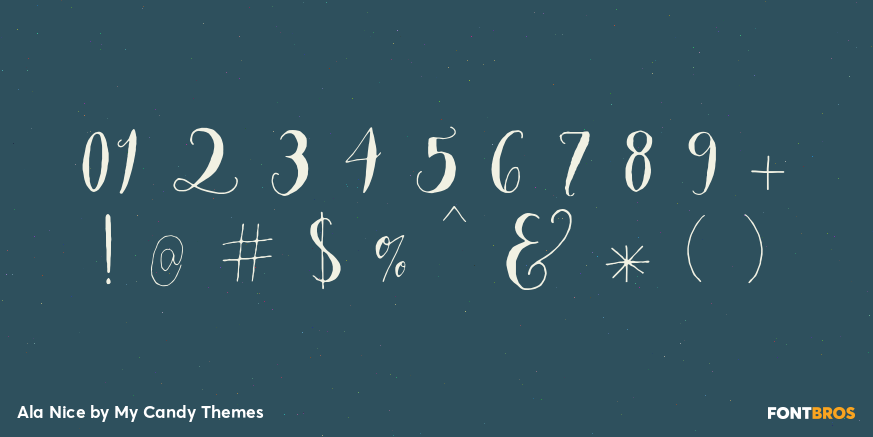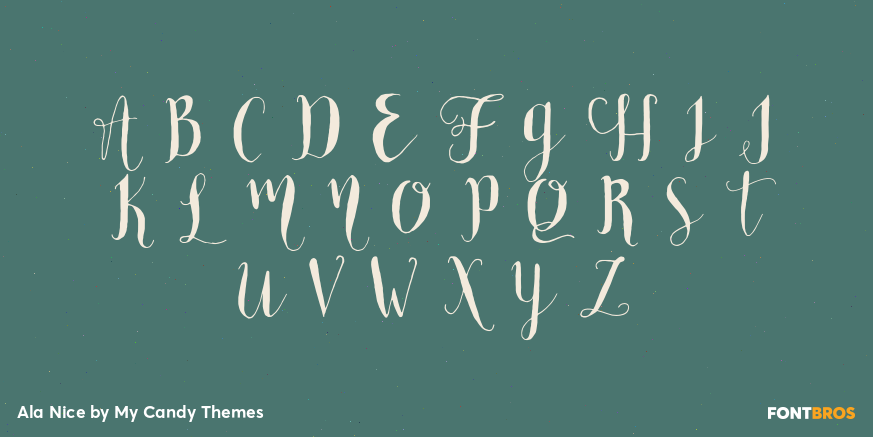
Ala Nice
Ala Nice is a modern, natural handlettered font that will beautify any lettering design project. Perfect for greeting cards, baby showers, invitations, art quotes, photography watermarks, graduation themes, weddings, anniversaries, birthday parties, and every other special moment.